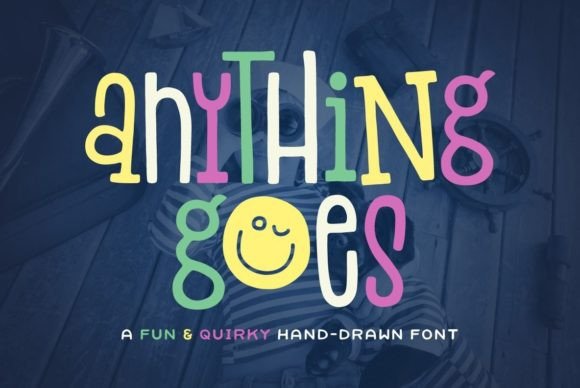
Anything Goes Font: A Quirky and Charming Hand-Drawn Font
The world of typography is vast and diverse, with numerous font styles to choose from, each with its unique characteristics and uses. One such font that has gained popularity among designers and artists is the Anything Goes font. This charming font boasts a quirky, hand-drawn style that is perfect for a variety of design projects, from logos and children’s books to package design and typographic posters.
The Unique Features of Anything Goes Font
Anything Goes font is a one-of-a-kind typeface that showcases a bouncy and playful character set. The font combines a mixture of sans and slab serif styles, creating a visually appealing contrast that sets it apart from other fonts. The characters in this font are meticulously hand-drawn, giving it a distinctive and personal touch.
One of the standout features of Anything Goes font is its eclectic mix of letterforms. The font includes a range of characters, from simple and clean sans serif letters to more ornate and decorative slab serif characters. This blend of styles makes Anything Goes font incredibly versatile and suitable for a wide range of design applications.
Key Features of Anything Goes Font:
- Hand-drawn, quirky, and charming font style
- Combines sans and slab serif styles
- Bouncy and playful character set
- Perfect for logos, children’s books, package design, and typographic posters
- Mix of simple and decorative letterforms
Uses of Anything Goes Font
Anything Goes font is an incredibly versatile typeface that can be used in a variety of design projects. Its playful and charming style makes it perfect for designs that require a touch of whimsy and personality. Here are some of the most popular uses of Anything Goes font:
Popular Uses of Anything Goes Font:
- Logos: The unique and playful style of Anything Goes font makes it an excellent choice for logos that require a touch of personality and whimsy.
- Children’s Books: The font’s charming and hand-drawn style is perfect for children’s books, making reading fun and engaging for young readers.
- Package Design: Anything Goes font can add a touch of playfulness and creativity to package design, making products stand out on store shelves.
- Typographic Posters: The font’s eclectic mix of letterforms makes it perfect for typographic posters that require a bold and eye-catching design.
The Benefits of Using Anything Goes Font
Anything Goes font offers a range of benefits to designers and artists. Here are some of the most significant advantages of using this font:
Benefits of Using Anything Goes Font:
- Unique and Playful Style: Anything Goes font offers a unique and playful style that can add a touch of personality to designs.
- Versatility: The font’s eclectic mix of letterforms makes it suitable for a wide range of design applications.
- Easy to Read: Despite its playful style, Anything Goes font is easy to read, making it perfect for designs that require a touch of whimsy and personality.
- Customizable: The font’s hand-drawn style makes it easy to customize and modify to suit specific design needs.
Tips for Using Anything Goes Font
To get the most out of Anything Goes font, here are some tips to keep in mind:
Tips for Using Anything Goes Font:
- Use it Sparingly: Due to its playful and whimsical style, Anything Goes font is best used sparingly to avoid overwhelming the design.
- Pair it with Other Fonts: The font’s eclectic mix of letterforms makes it perfect for pairing with other fonts to create a unique and visually appealing design.
- Experiment with Colors: Anything Goes font looks great in a range of colors, so don’t be afraid to experiment and find the perfect color scheme for your design.
- Pay Attention to Legibility: While Anything Goes font is easy to read, it’s essential to pay attention to legibility, especially when using it for body text.
Anything Goes font is a charming and quirky hand-drawn font that is perfect for designers and artists looking to add a touch of personality and whimsy to their designs. Its eclectic mix of letterforms, playful style, and versatility make it suitable for a wide range of design applications, from logos and children’s books to package design and typographic posters. By following the tips outlined above and experimenting with different design applications, designers can get the most out of Anything Goes font and create unique and visually appealing designs that stand out from the crowd.